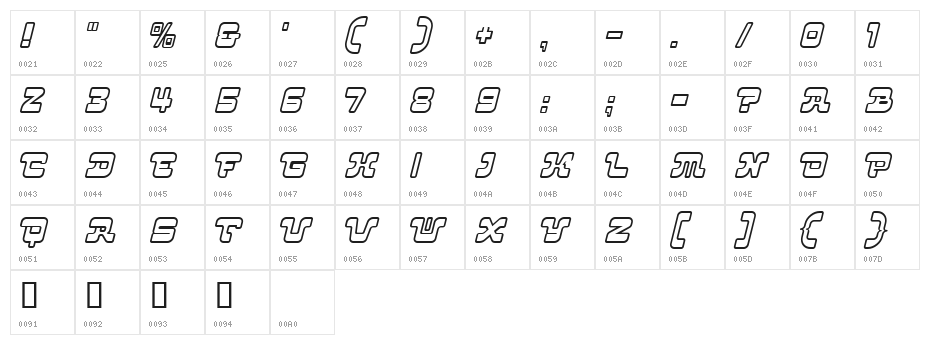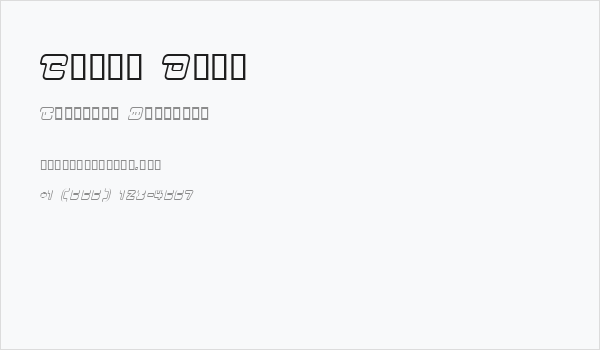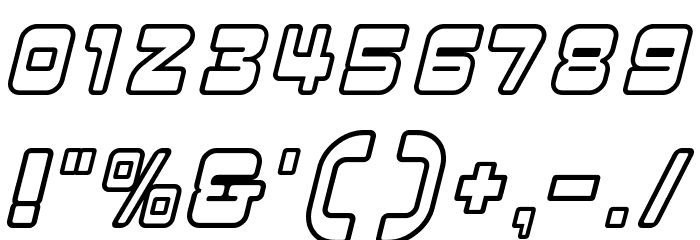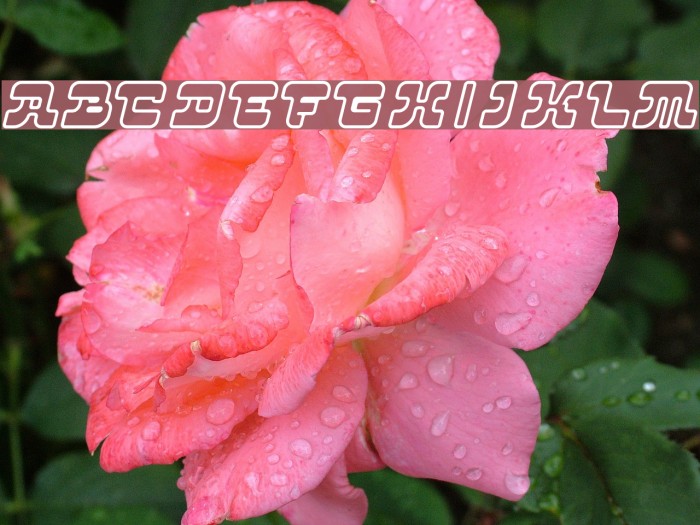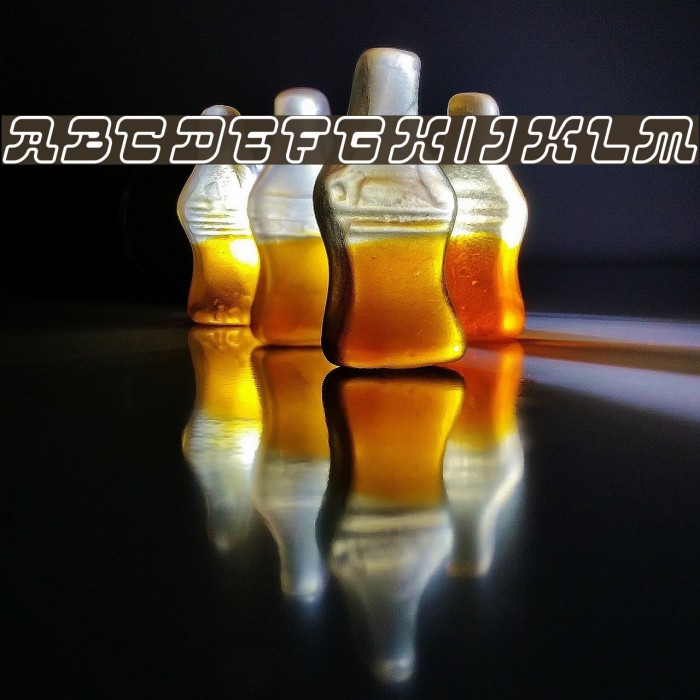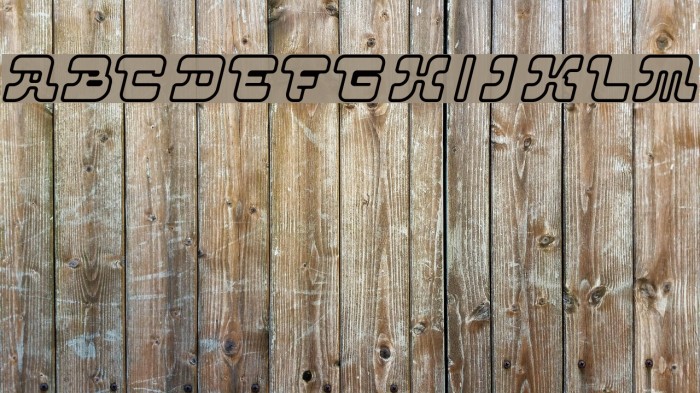
Camel Open Font
Camel Open Description
This font features a bold, geometric design with a distinct outline style. The characters are constructed with a combination of straight lines and curves, creating a futuristic and dynamic appearance. The uppercase and lowercase letters maintain a consistent style, with a uniform stroke width that gives the font a cohesive look. The numerals and special characters are designed to match the overall aesthetic, ensuring versatility across different uses. The font's unique outline effect adds depth and dimension, making it ideal for eye-catching designs.
| Proposed Projects | Ideal for branding, posters, headlines, and digital artwork where a modern and striking appearance is desired. |